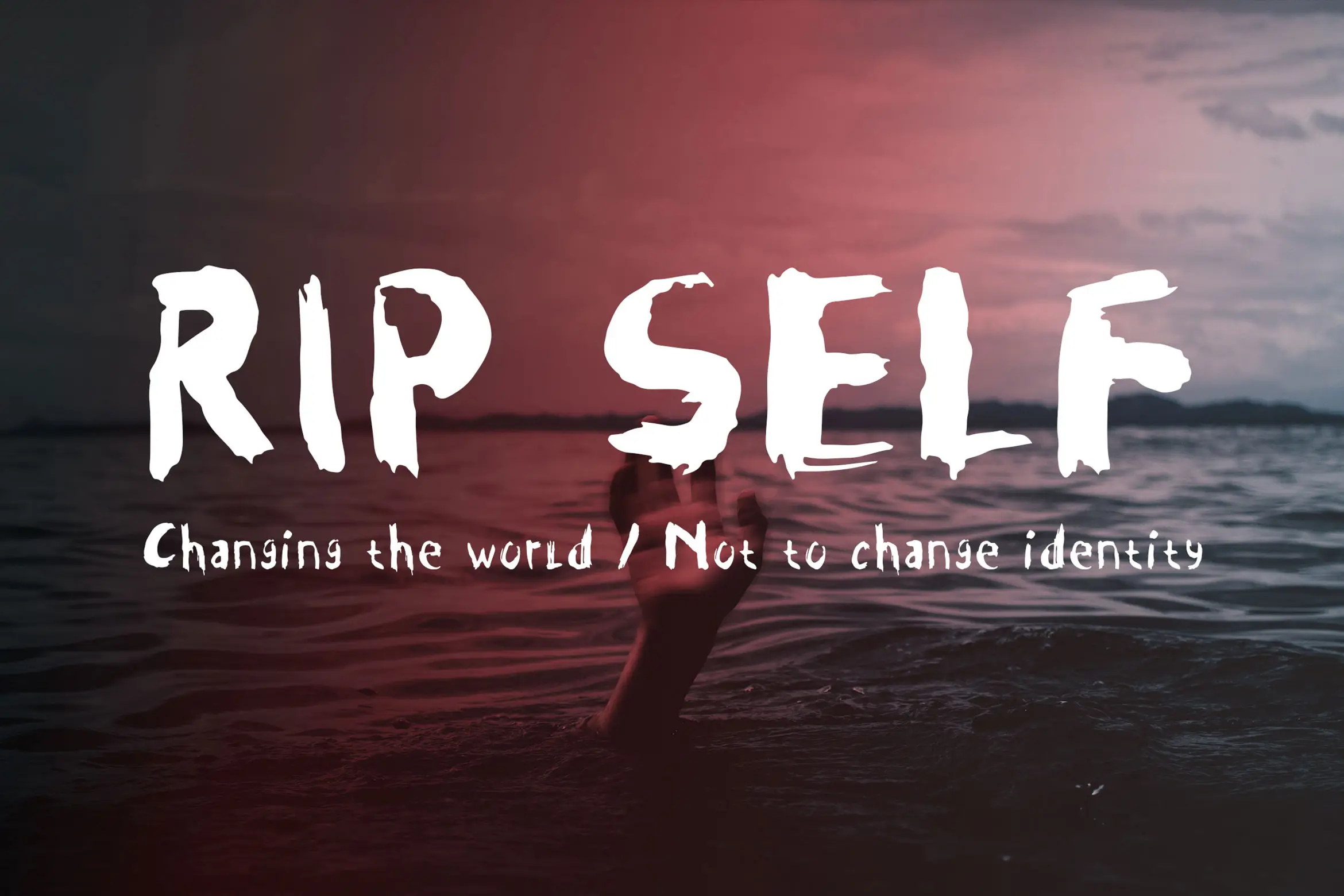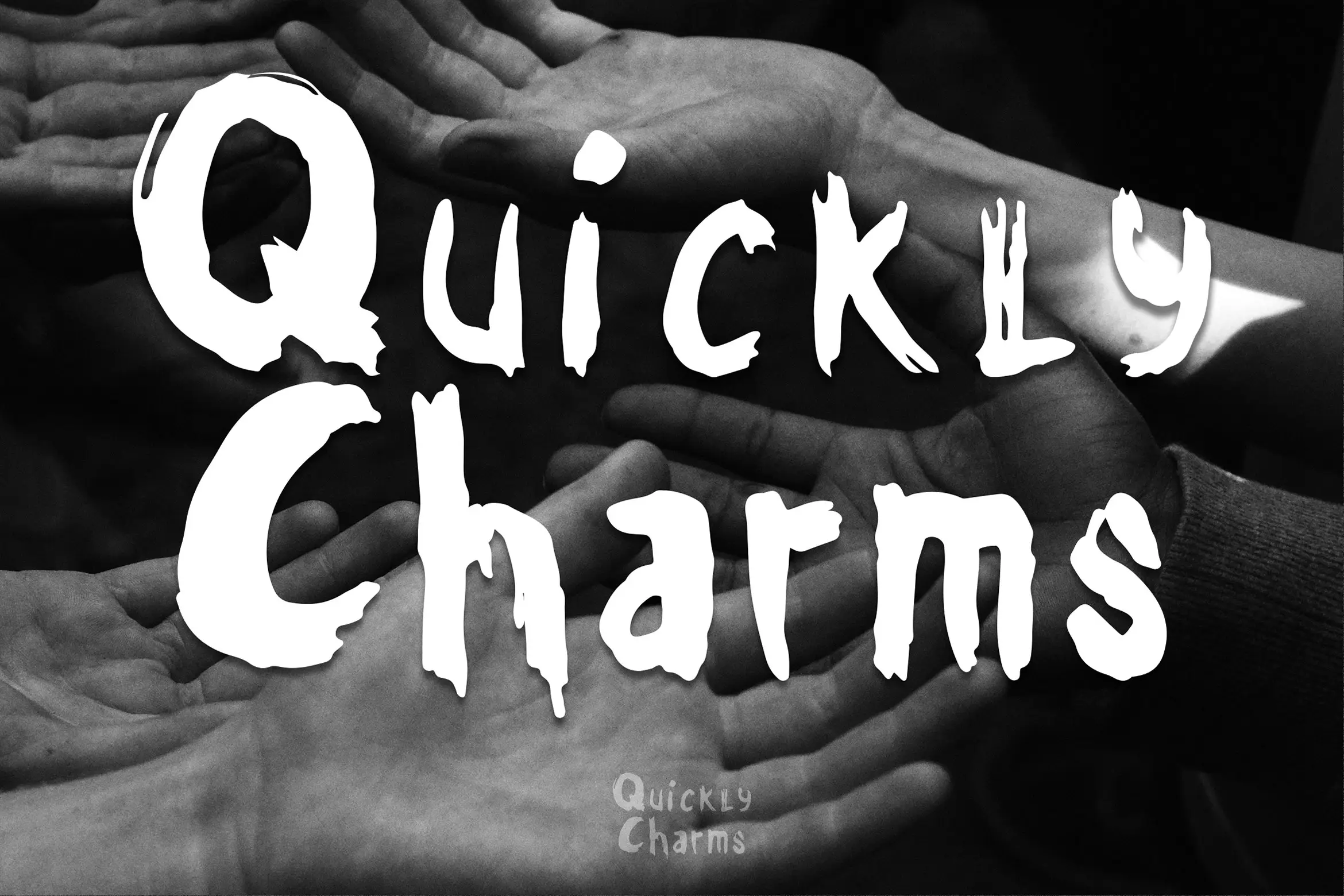
Quickly Charms is a modern, hand-drawn typeface. It has a elegant, classy look. It’s a great font for fashion, apparel projects, signature, album cover, logo, branding, magazine, social media, & advertisements, but also works great for other projects.